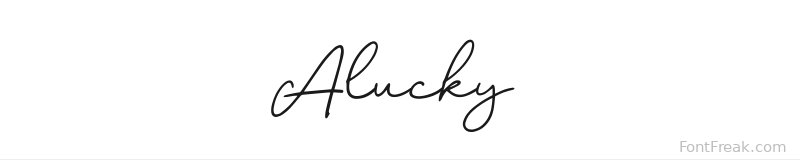
Alucky
The Alucky font by Syaf Rizal is a captivating handwritten typeface that effortlessly combines elegance with a modern flair. This font, categorized as a script, features smooth, flowing lines that mimic the natural strokes of penmanship, making it an ideal choice for projects that require a personal touch. With its medium stroke weight and minimal contrast, Alucky strikes a perfect balance between readability and style, ensuring that it stands out without overwhelming the viewer. The generous spacing between letters adds to its legibility, making it suitable for various applications.
Alucky is versatile and can elevate numerous design projects. It is particularly well-suited for wedding invitations, where its romantic vibe can enhance the overall aesthetic. Additionally, it shines in creating eye-catching movie posters, giving titles a whimsical yet sophisticated appearance. Restaurant menus can also benefit from its unique charm, drawing attention to special dishes or drink offerings. Small business branding, particularly for artisanal products or boutique shops, can leverage the warmth and approachability of Alucky to create a memorable identity.
The target audience for Alucky includes graphic designers, small business owners, and content creators who seek to add a distinctive element to their work. This font provides an opportunity for creative expression, allowing users to convey messages with style and personality.
What sets Alucky apart is its ability to blend artistic flair with functionality. The careful design ensures that it retains its charm across various sizes and formats, making it a reliable choice for both digital and print media. For those looking to enhance their design toolkit, the Alucky font free download offers an accessible way to incorporate this delightful typeface into your projects.